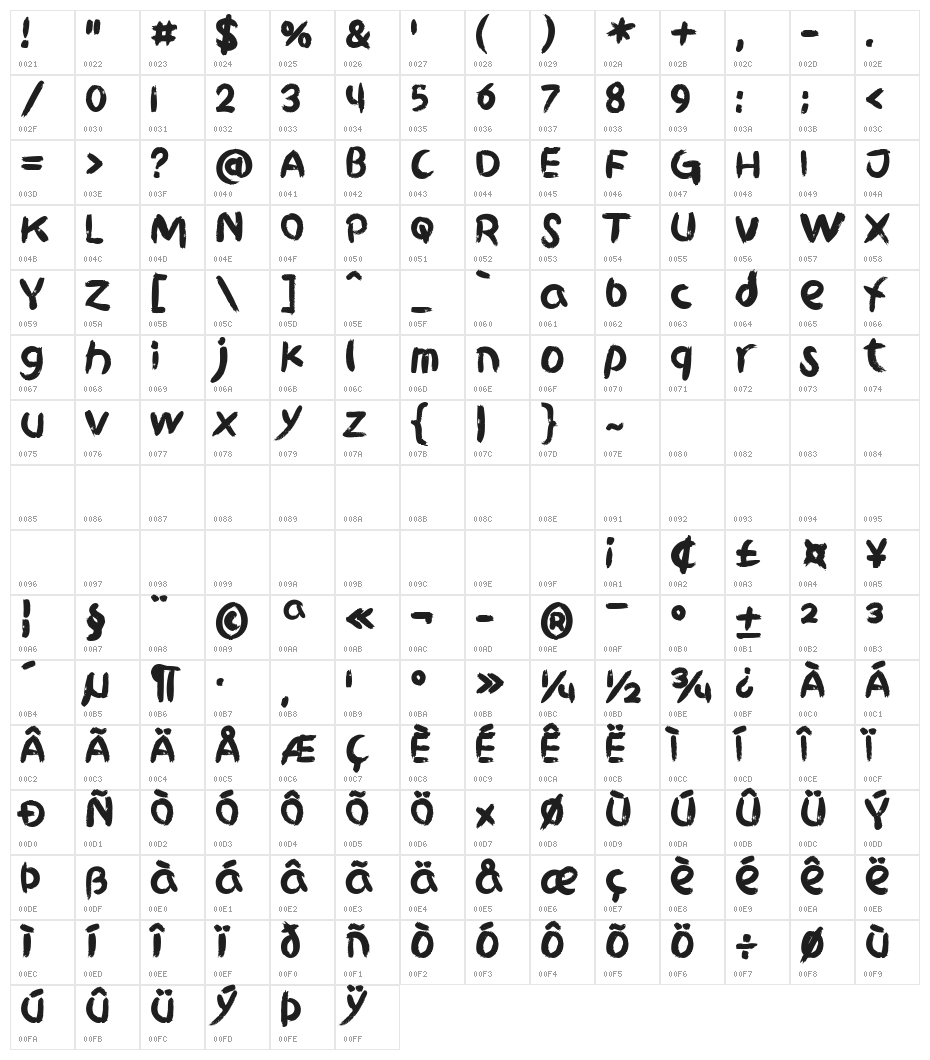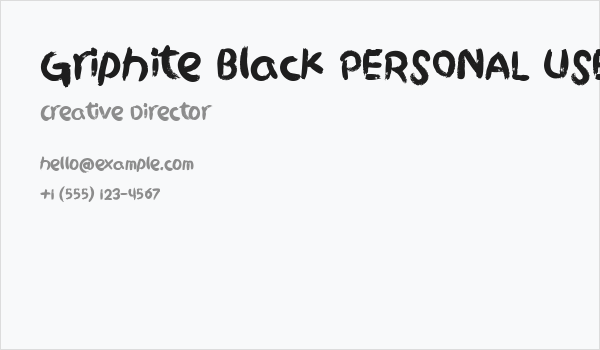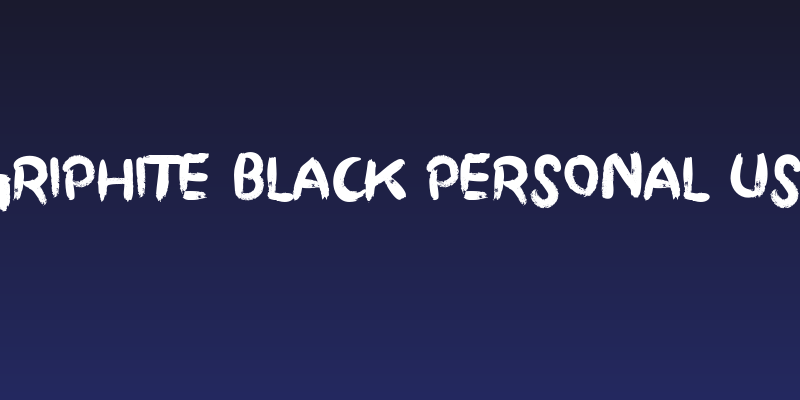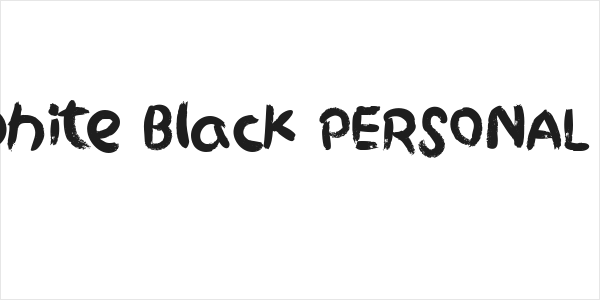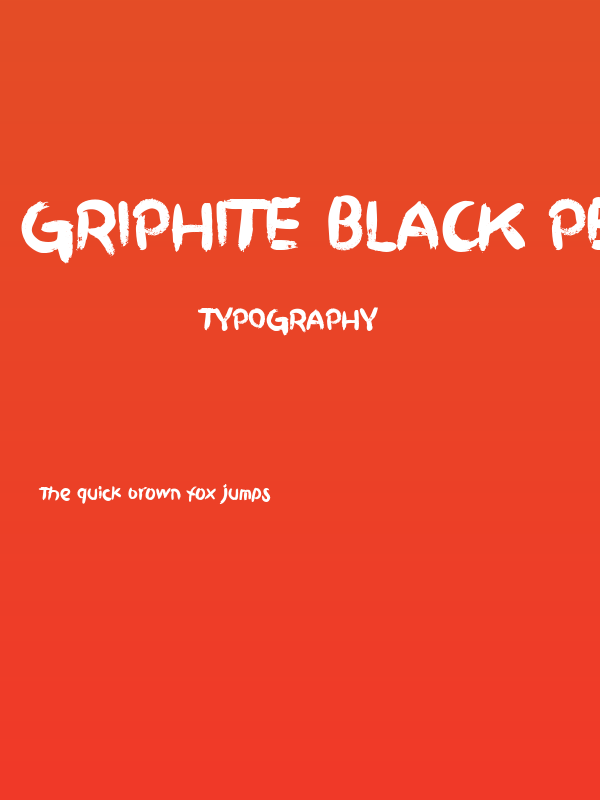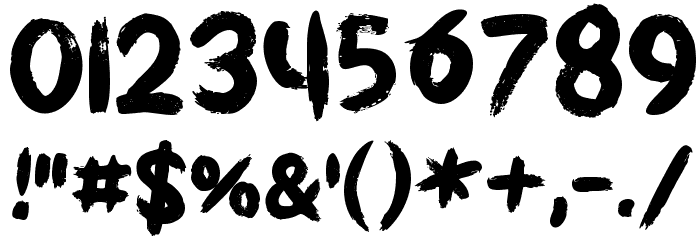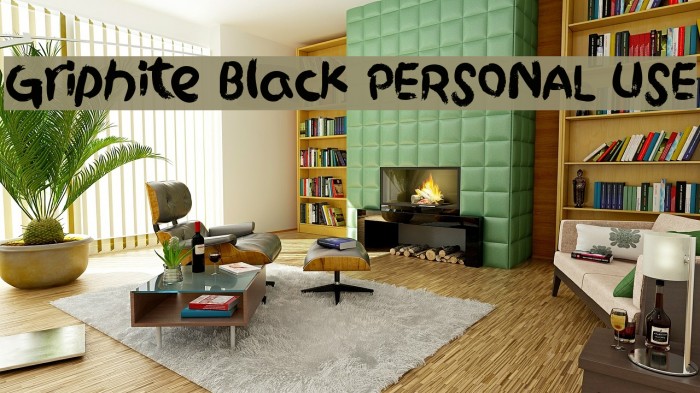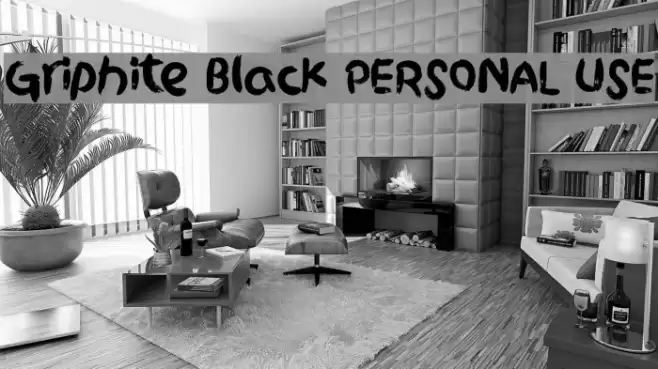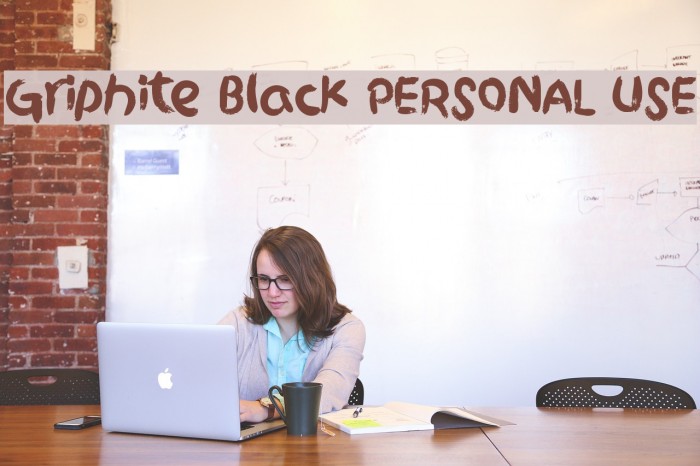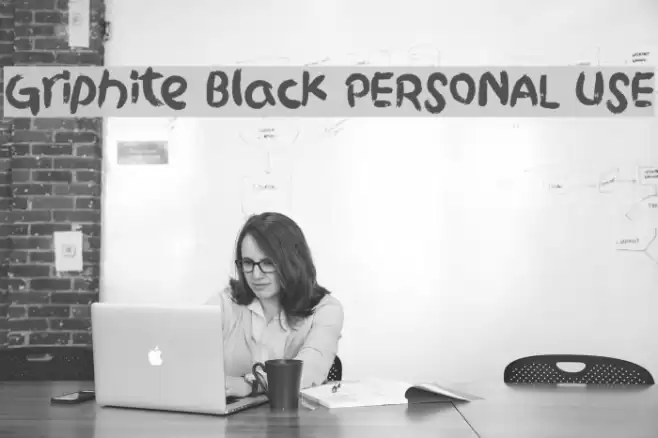
Griphite Black PERSONAL USE Font
Griphite Black PERSONAL USE Description
This font features a bold, expressive brush style with a hand-painted appearance. The strokes are uneven and textured, giving it a dynamic and energetic feel. The characters are slightly irregular, adding to the handcrafted aesthetic. The uppercase and lowercase letters maintain a consistent style, with the uppercase being slightly more pronounced. Numbers and special characters follow the same artistic approach, ensuring a cohesive look across all elements. This font is ideal for projects that require a personal touch or an artistic flair.
| Proposed Projects | Perfect for artistic projects, posters, branding, and any design needing a bold, handcrafted look. |